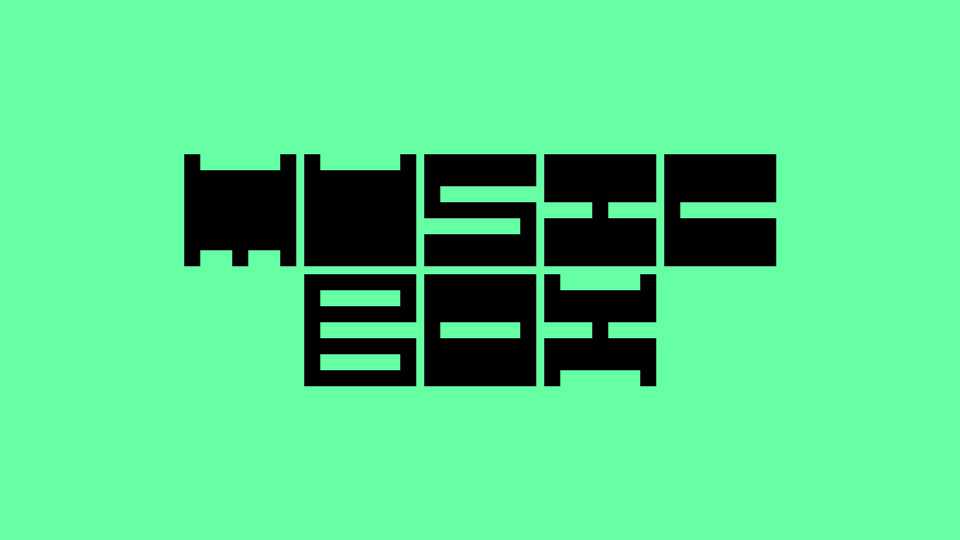
Music Box Font › Fontesk – Download Grátis
Download Music Box font, a variable typeface with two axes: “Amplitude,” for the size of each letter’s negative spaces, and “Frequency,” for the direction of those negative spaces.
Designer: Too Much Type